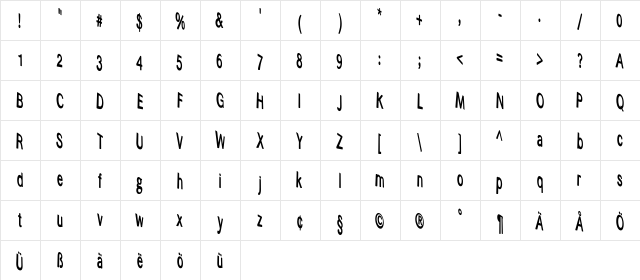
helvari CondensedRegularExtrudet
| Foundry | loosy (fabian pfeifhofer) |
| Designer | loosy (fabian pfeifhofer) |
Design Context for helvari Typeface
helvari takes a measured approach to typography — its balanced proportions and neutral character make it a reliable workhorse for both digital and print work. The condensed width makes it efficient for tight spaces without sacrificing legibility.